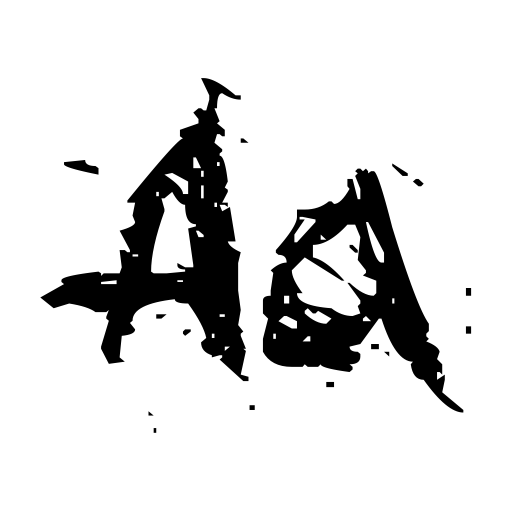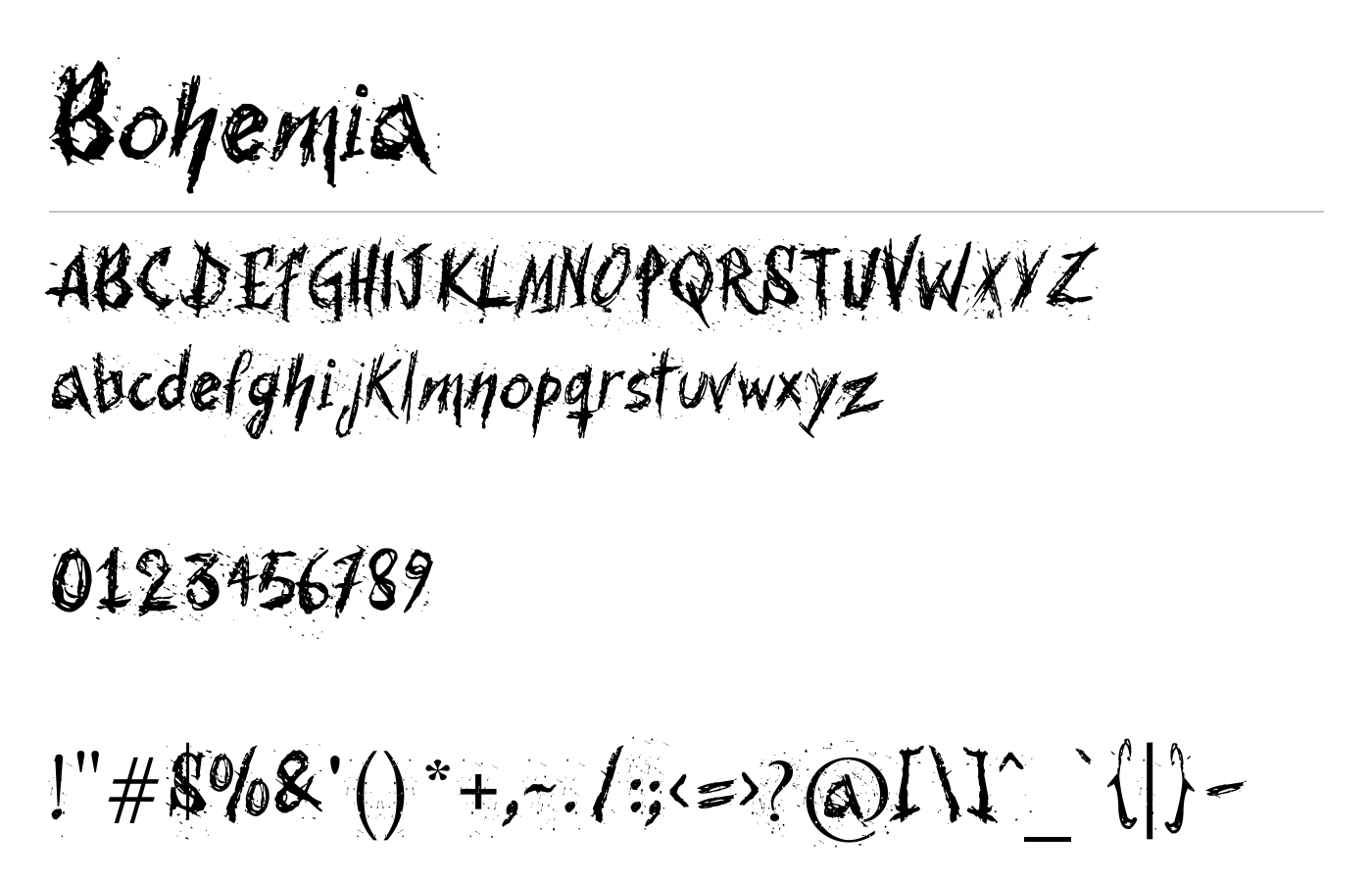
Bohemia is a distressed, hand-drawn font with a rough, edgy texture that gives it a rebellious and artistic vibe. Its irregular strokes and splattered ink effect make it perfect for creative projects looking to convey a gritty, informal, or alternative style. This font works well for posters, logos, or designs that want to stand out with a bold, unconventional personality.
Bohemia Font
About Bohemia Font
| Font family | Bohemia Font |
| Designer | Juan Casco |